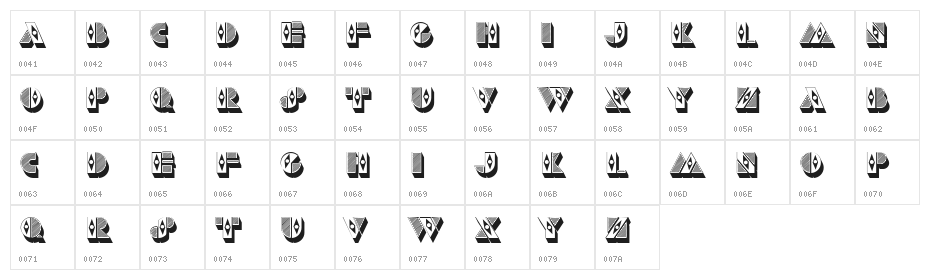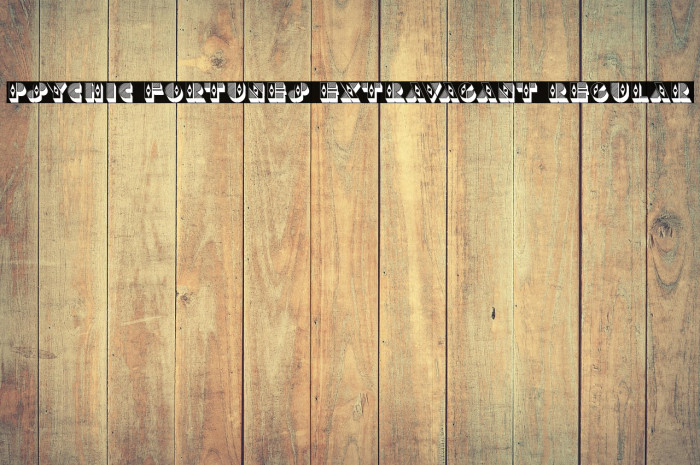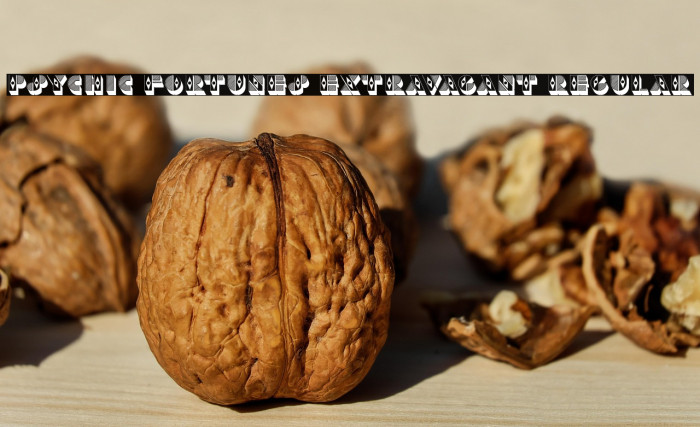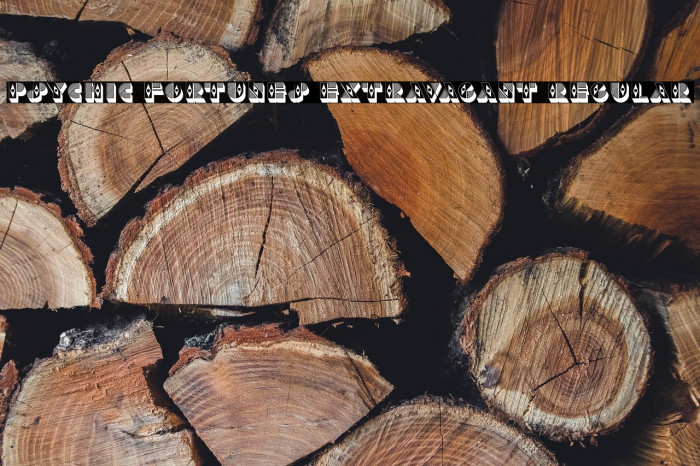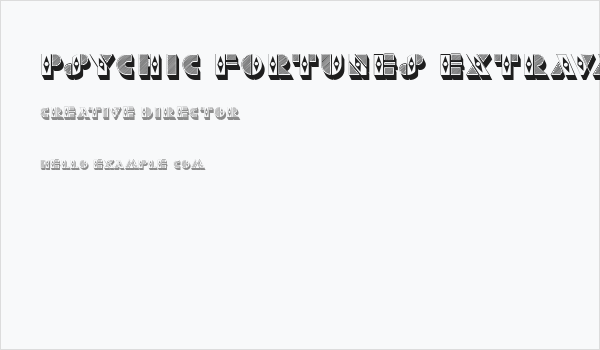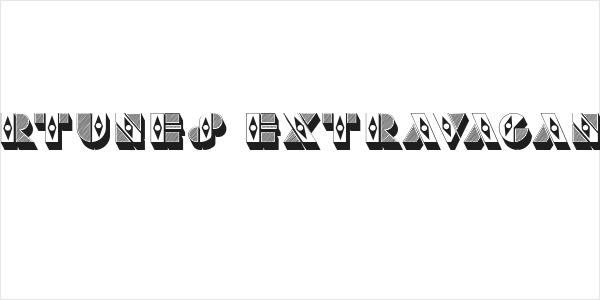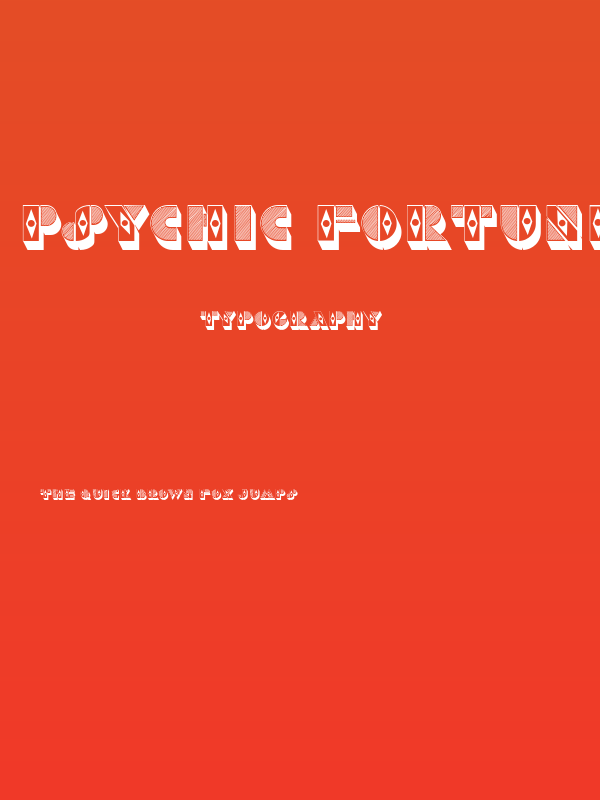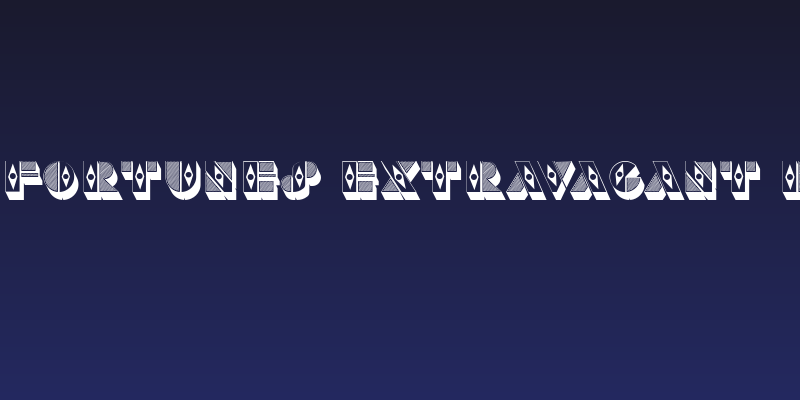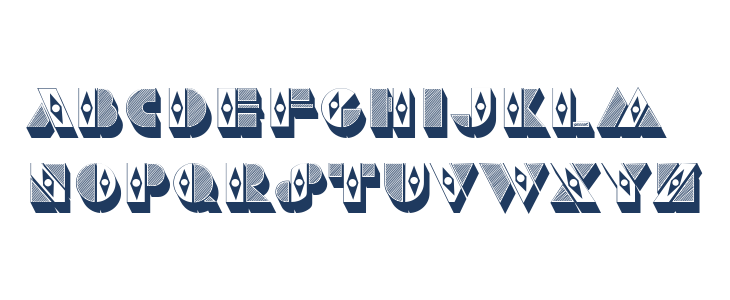
Psychic Fortunes Extravagant Regular Font
Psychic Fortunes Extravagant Regular Description
This font features a bold and extravagant design with a three-dimensional appearance. Each character is adorned with intricate patterns and geometric shapes, creating a sense of depth and movement. The letters are blocky and robust, with a unique combination of solid fills and textured details. The overall aesthetic is reminiscent of vintage circus or carnival themes, making it highly decorative and eye-catching. The font's playful and artistic style is perfect for projects that require a strong visual impact.
| Overall Style | Vintage, Decorative |
| Proposed Projects | Ideal for posters, event invitations, branding for creative industries, and any project needing a vintage or whimsical touch. |